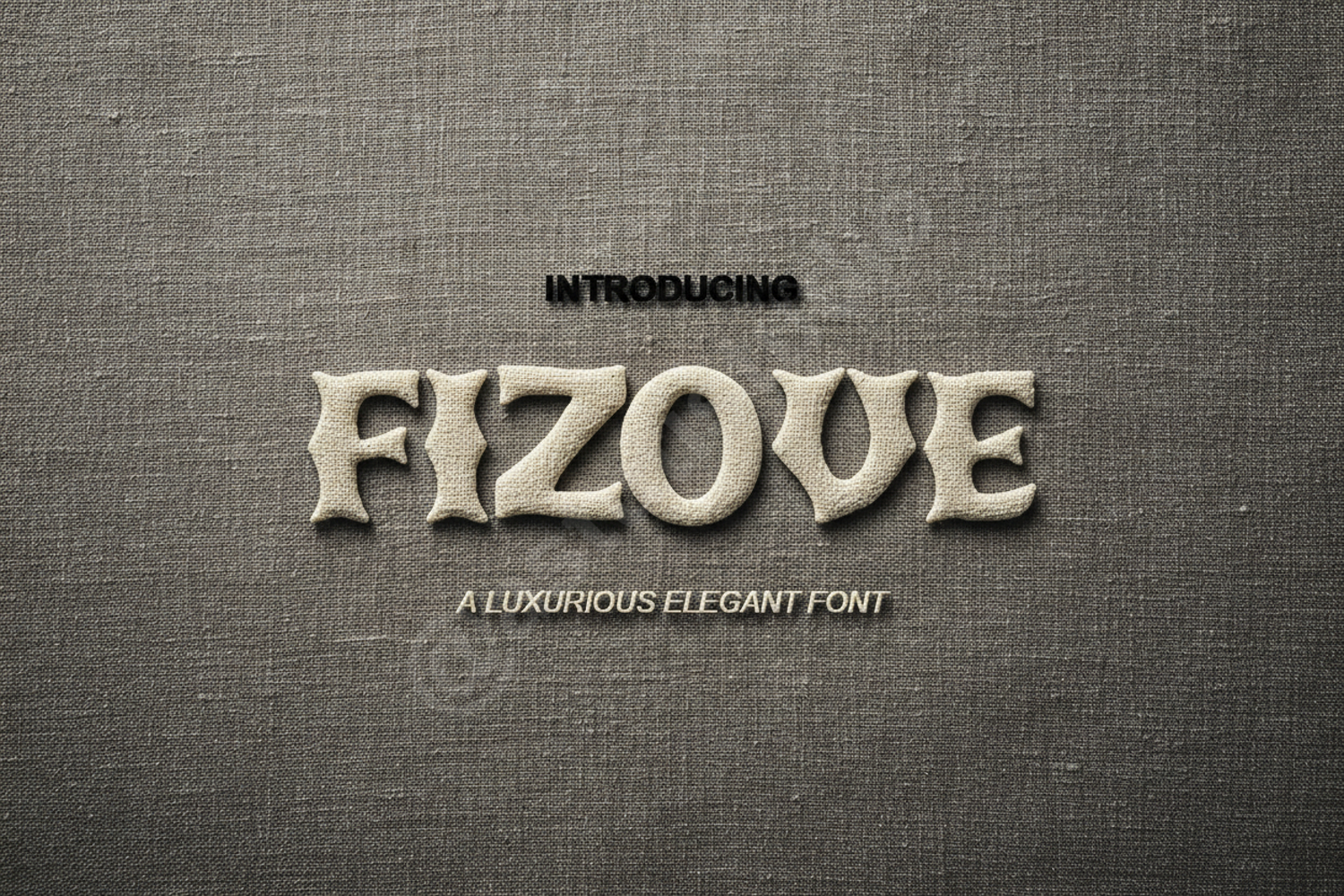
Fizove - Modern Chic Serif Font
Fizove
Fizove is a premium serif font meticulously crafted to bring a touch of high-end sophistication to your design projects. Combining classic proportions with contemporary flair, Fizove offers a clean and balanced aesthetic that exudes professional quality. Whether you are working on a luxury brand identity or a minimalist editorial layout, this font provides the versatility and elegance needed to make a lasting impression.
- Smooth lines and optimized kerning for professional results
- Branding and Visual Identity: Perfect for logos and corporate stationery that require a refined look.
- Wedding and Event Stationery: Create stunning invitations, menus, and place cards with an elegant touch.
- Editorial Design: Ideal for magazine headings, book covers, and high-fashion spreads.
- Social Media and Digital Marketing: Elevate your quotes, advertisements, and promotional graphics.
- Product Packaging: Enhance the shelf appeal of luxury goods and artisanal products.